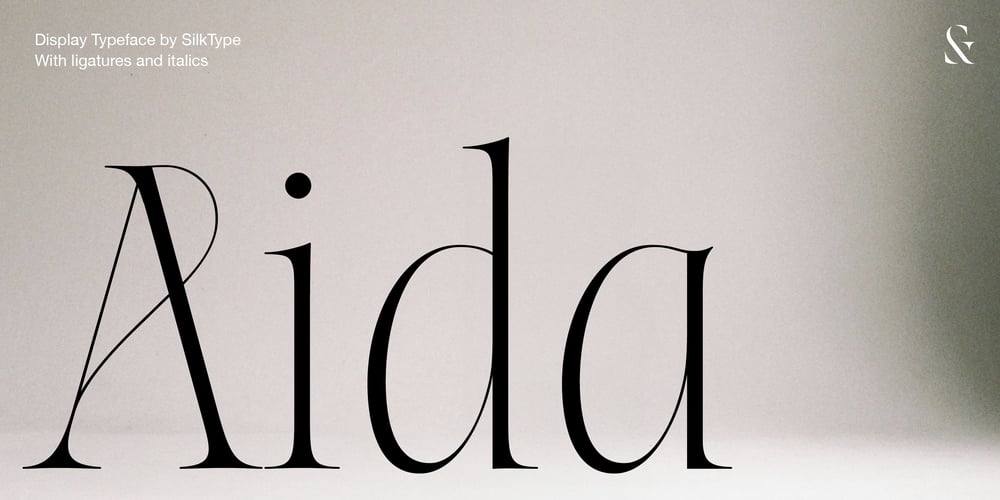
Aida Font Family was designed by Rakel Tómasdóttir and published by SilkType. Aida contains 2 styles and family package options. Aida is a high-contrast display font created for elegant and striking design statements, featuring extra thin serifs and hairlines that lend it a distinctive, refined appearance. These details bring sophistication and precision to headlines, luxury branding, and editorial layouts. Available in both Roman and Italic styles, Aida includes over 100 intricate ligatures and alternate letterforms, offering artistic expression and versatility. The combination of thin serifs and flowing italic forms makes it ideal for premium design projects, fashion brands, or any design that requires subtlety and flair. Whether used in luxury branding, magazines, or creative typography, Aida elevates every design with its unique, refined charm. Its versatility allows designers to explore different expressions, adding a sophisticated edge to their work.